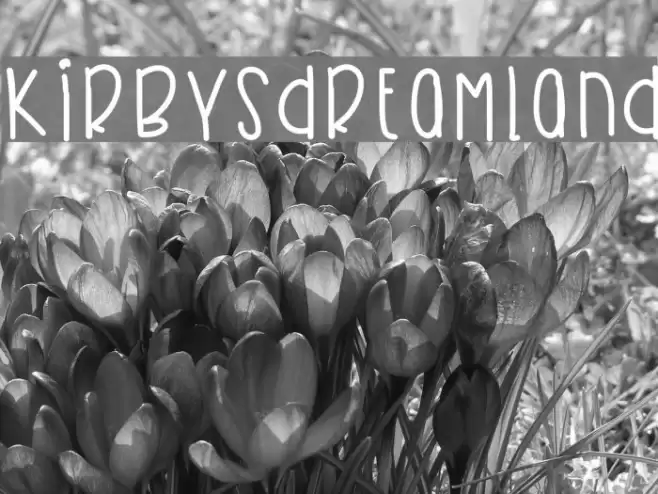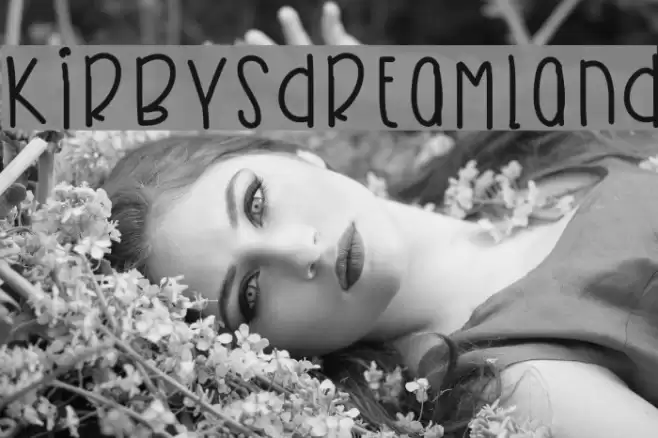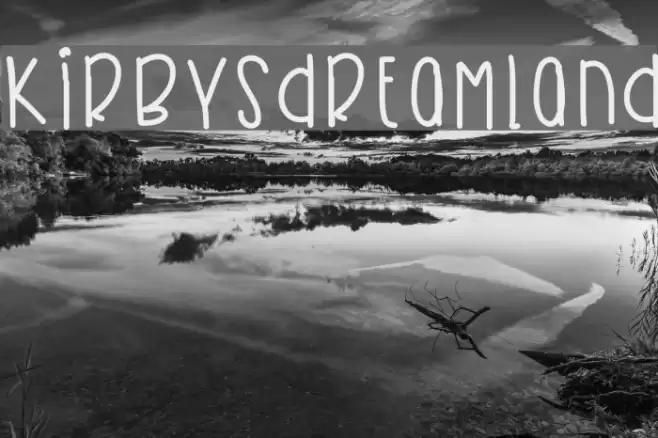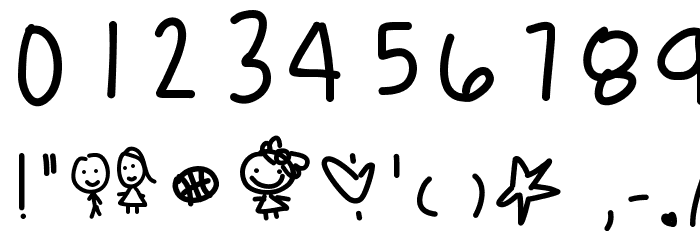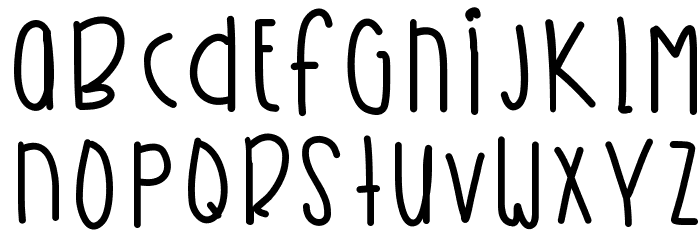
KirbysDreamland Font
KirbysDreamland Description
This playful and whimsical font features a handwritten style with a casual, friendly appearance. The characters are slightly elongated with rounded edges, giving them a soft and approachable look. The uppercase and lowercase letters maintain a consistent style, with a slight variation in size and shape that adds to the font's charm. The numbers are clear and easy to read, while the special characters include delightful, quirky symbols that enhance the font's playful nature. Overall, this font exudes a sense of fun and creativity, making it ideal for projects that aim to convey a lighthearted and cheerful tone.
A playful, handwritten font with a whimsical and friendly appearance from Handwritten fonts.
- Proposed Projects: Ideal for children's books, playful branding, greeting cards, and creative projects that require a fun and approachable aesthetic.
- Overall Style: Playful
- Use Case: Headlines, Logos, Creative projects